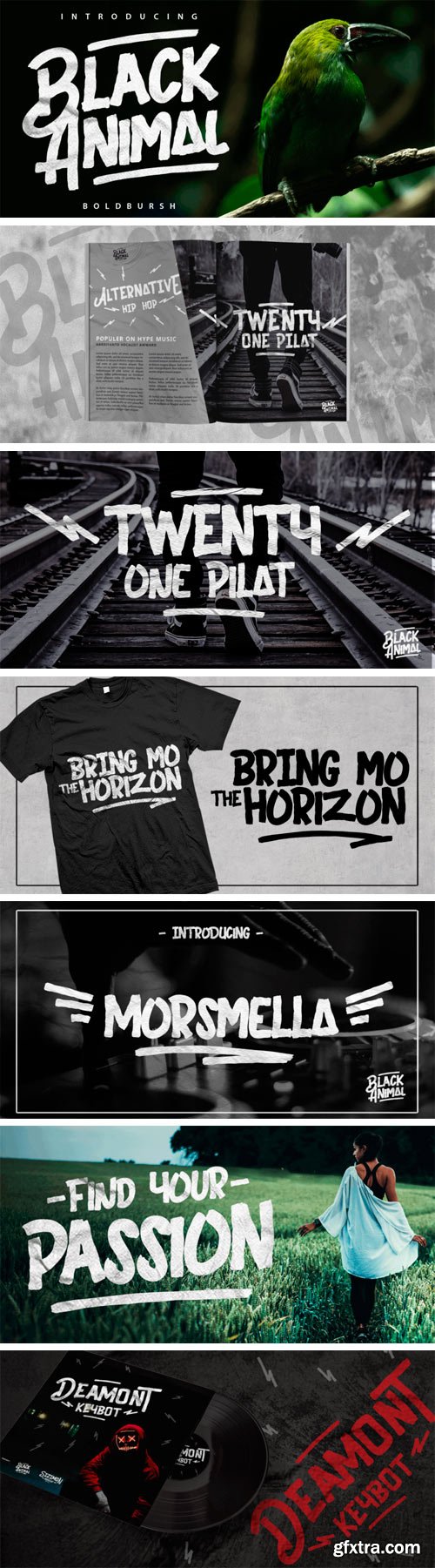
Black Animal is handmade brush style font. Very cool for logos, product packaging, merchandise, social media & branding. And very easy to use to design t-shirts and other products. It contains a full set of lower & uppercase letters, a large range of punctuation, numerals, and multilingual support.